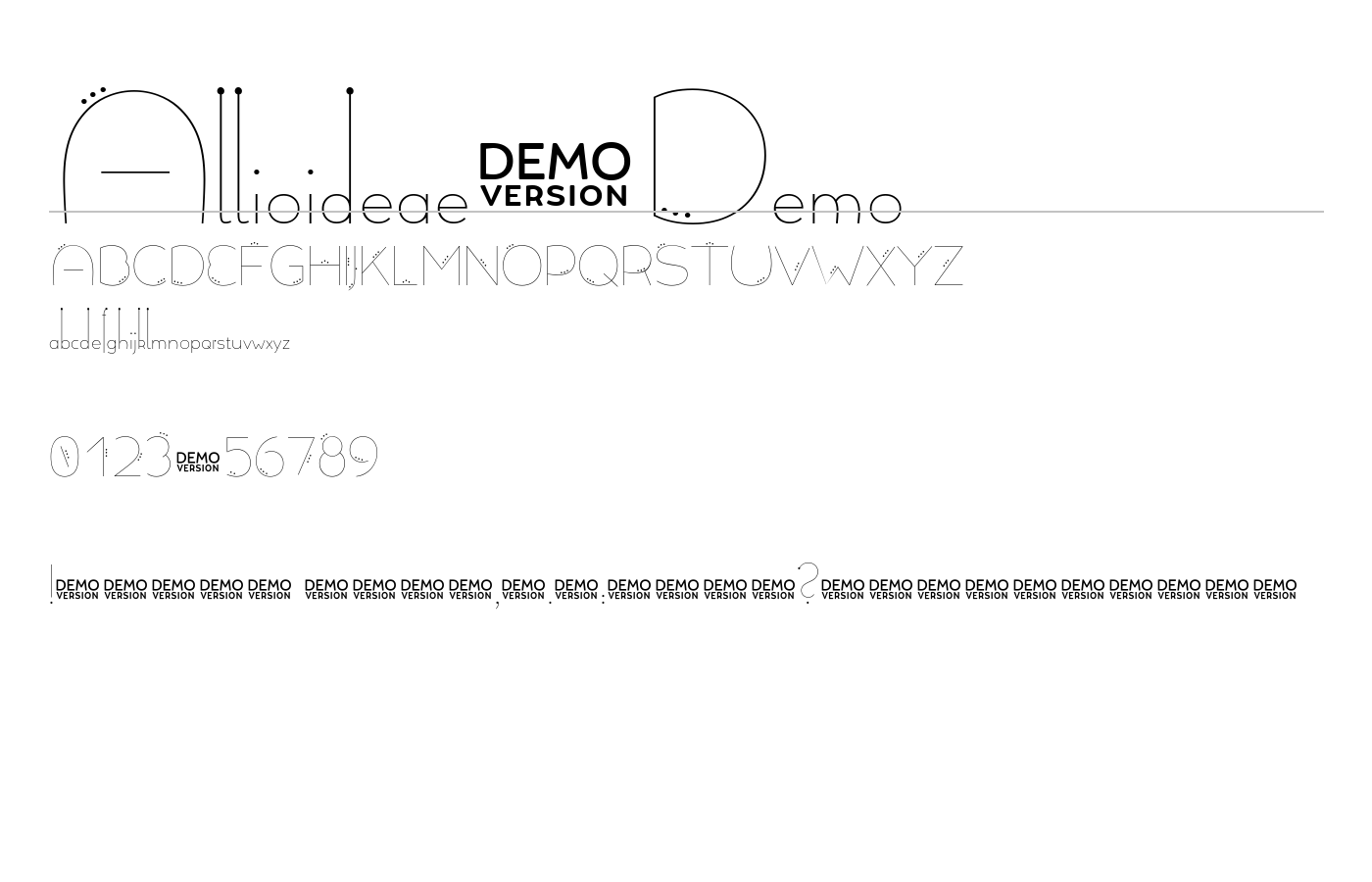
Allioideae-Demo is a delicate, ultra-light sans serif font characterized by its thin geometric strokes and high x-height, giving it an elegant, modern appearance. Its unique letterforms, featuring minimalist lines and playful dot accents, offer a refined yet artistic feel, making it ideal for sophisticated branding, editorial headlines, and creative projects that seek a contemporary, airy touch. This font works best in large sizes where its fine details can shine, adding a sense of modern luxury and subtle uniqueness.
Allioideae-Demo Font
About Allioideae-Demo Font
| Font family | Allioideae-Demo Font |
| Designer | Anita Jürgeleit |